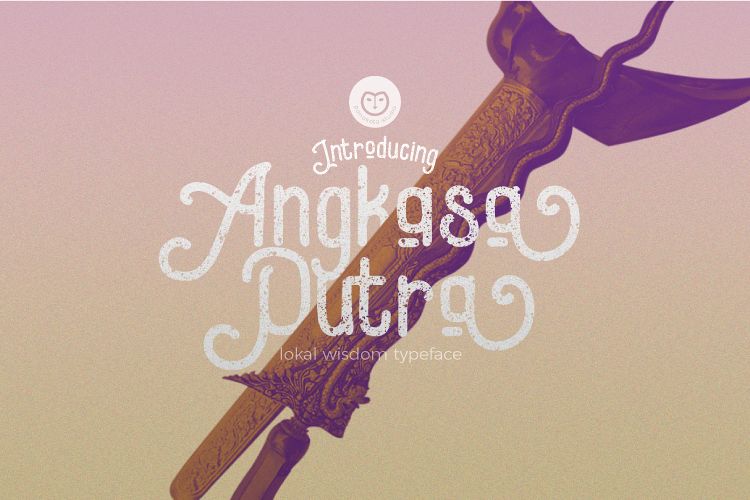
ANGKASA PUTRA
Introducing the new typeface from panakota. The local wisdom typeface that we called "Angkasa Putra". Angkasa Putra inspired by Aksara in era of Majapahit kingdom. It has a uniq style and complexity structure but you can use it easily, because the character automaticly fit with the other character in the adjustment, so you just have to use instantly but it's possible if you want to addjust manualy.If you purchasing,